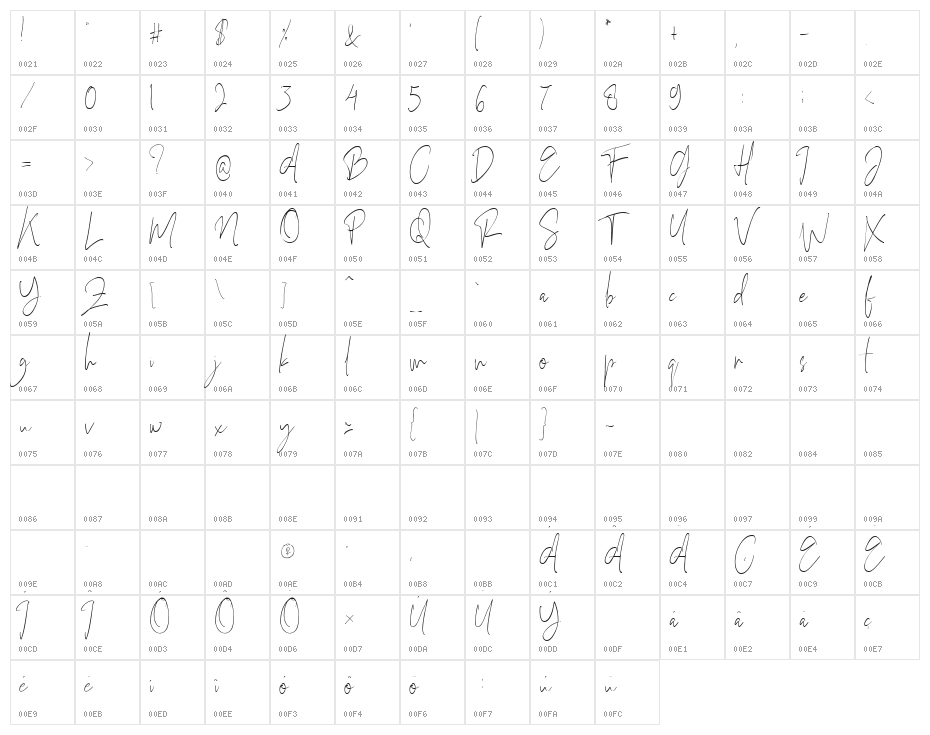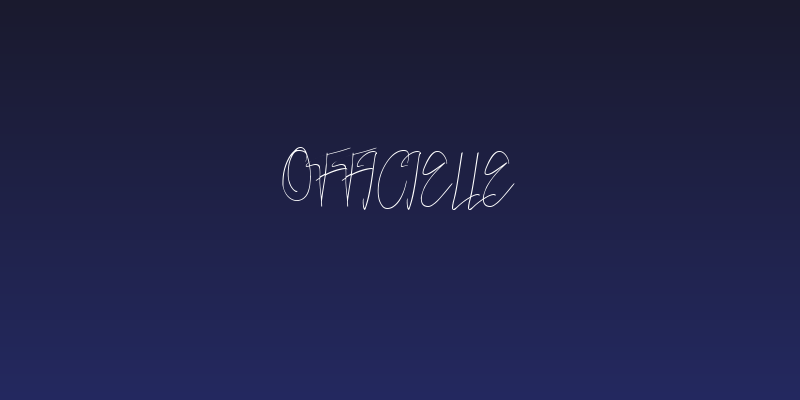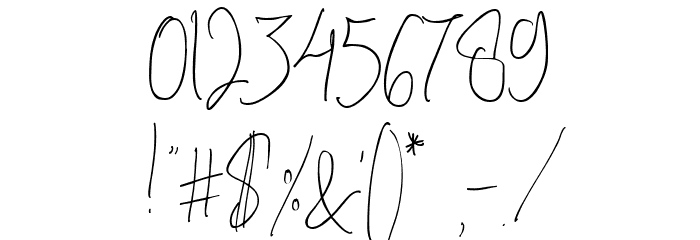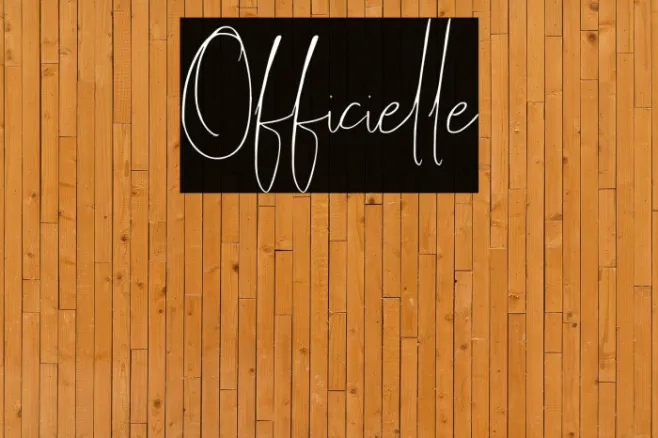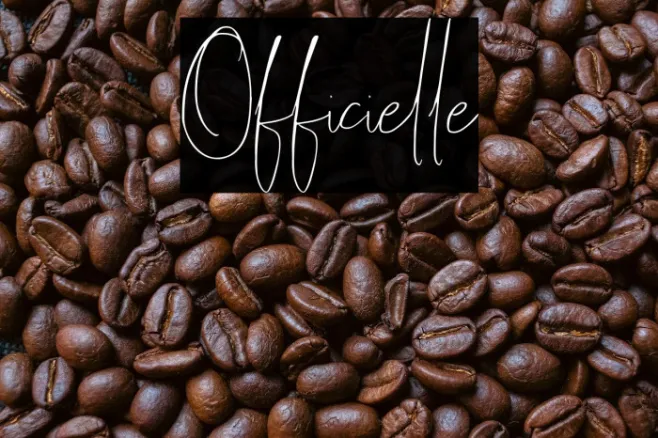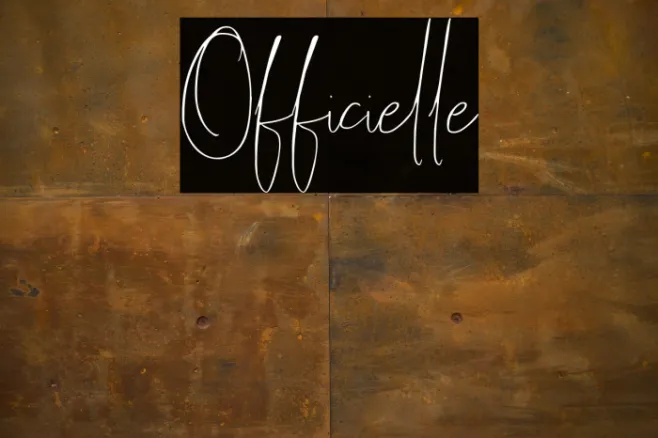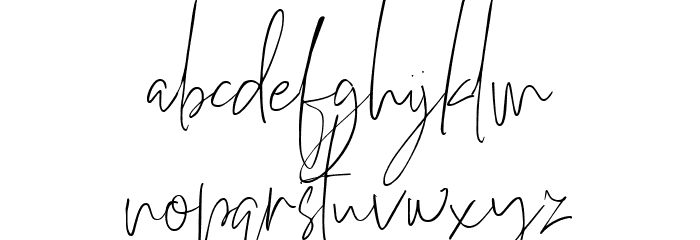
Officielle Font
Officielle Description
This font features a dynamic and fluid handwritten style, characterized by its elegant and flowing strokes. The letters are connected in a cursive manner, giving it a personal and artistic touch. The uppercase letters are bold and expressive, while the lowercase letters maintain a consistent flow, enhancing readability. Numbers and special characters are crafted with the same attention to detail, ensuring a cohesive look across all elements. The overall appearance is both sophisticated and approachable, making it suitable for a variety of creative projects.